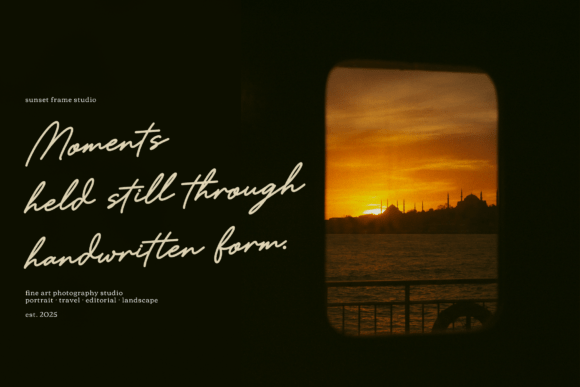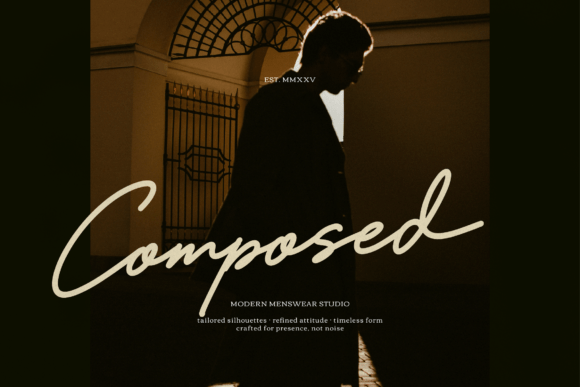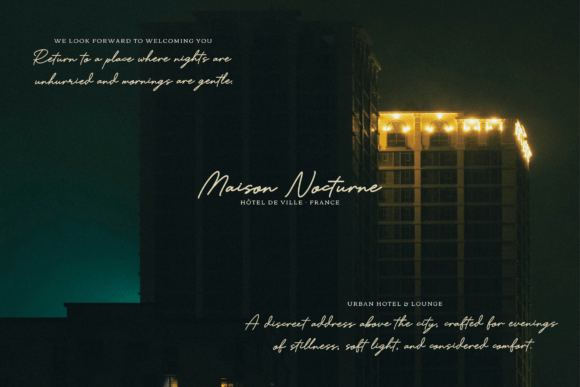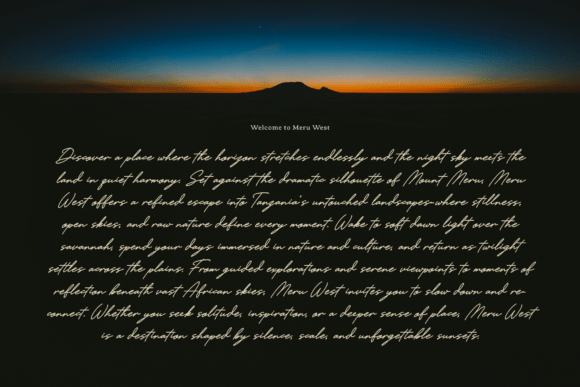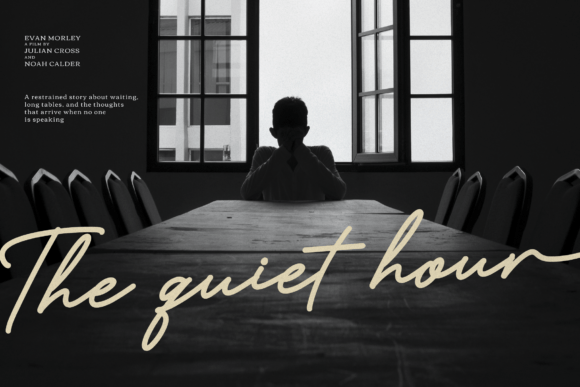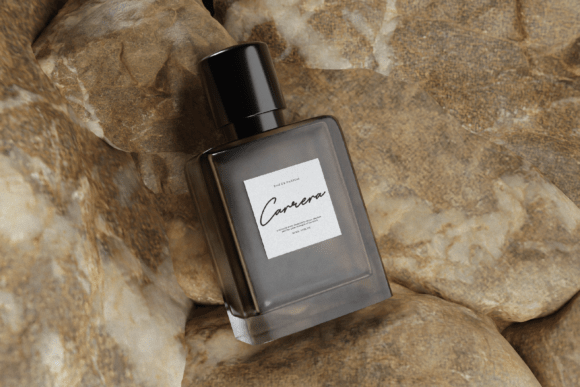
Fiorelyne Font: Elevate Your Design with Effortless Luxury and Modern Elegance
In the world of typography, few fonts manage to convey the essence of luxury and sophistication as effortlessly as Fiorelyne. This exquisite signature font is a masterpiece of modern elegance, designed to bring a touch of refinement and personalized style to any design project. Whether you’re a designer looking for the perfect font to elevate your branding, a crafter seeking to add a touch of elegance to your handmade creations, or simply someone who appreciates the beauty of fine typography, Fiorelyne is sure to captivate.
The Essence of Fiorelyne: Delicate, Sophisticated, and Elegant
Fiorelyne is characterized by its delicate, fast-flowing hand, which imparts a sense of movement and fluidity to any design. This sleek monoline script font maintains a beautiful consistency, ensuring that every letter and word flows seamlessly into the next. The result is a truly authentic, customized look that exudes effortless luxury and modern elegance.
One of the standout features of Fiorelyne is its natural ligatures and subtle alternates. These thoughtful design elements allow for a high degree of customization, enabling designers to create unique and personalized designs that stand out from the crowd. Whether you’re creating high-end branding, fashion photography watermarks, luxury wedding stationery, or signature logos, Fiorelyne provides the perfect combination of style, sophistication, and versatility.
Perfect for High-End Design Projects
Fiorelyne is the perfect choice for designers and crafters who specialize in high-end design projects. Its sleek, refined lines and elegant flow make it ideal for:
- High-end branding: Fiorelyne’s luxurious feel and modern elegance make it the perfect font for branding projects that require a sophisticated, high-end look.
- Fashion photography watermarks: The font’s delicate, fast-flowing hand and natural ligatures make it perfect for adding a touch of elegance to fashion photography watermarks.
- Luxury wedding stationery: Fiorelyne’s refined lines and customized look make it ideal for creating luxurious wedding stationery that exudes elegance and sophistication.
- Signature logos: The font’s unique, personalized feel makes it perfect for creating signature logos that stand out from the crowd.
Why Choose Fiorelyne?
So why choose Fiorelyne over other fonts? Here are just a few reasons why this exquisite signature font stands out:
- Effortless luxury: Fiorelyne’s sleek, refined lines and elegant flow make it the perfect choice for designers who want to convey a sense of luxury and sophistication.
- Modern elegance: The font’s modern, streamlined design ensures that it looks fresh and contemporary, even in traditional design contexts.
- Customized look: Fiorelyne’s natural ligatures and subtle alternates allow for a high degree of customization, enabling designers to create unique and personalized designs.
- Versatility: The font’s sleek, refined lines and elegant flow make it perfect for a wide range of design projects, from high-end branding to luxury wedding stationery.
In conclusion, Fiorelyne is a truly exceptional signature font that offers a unique combination of elegance, sophistication, and versatility. Its delicate, fast-flowing hand, natural ligatures, and subtle alternates make it the perfect choice for designers and crafters who want to elevate their designs with a touch of effortless luxury and modern elegance. Whether you’re working on high-end branding, fashion photography watermarks, luxury wedding stationery, or signature logos, Fiorelyne is sure to impress.